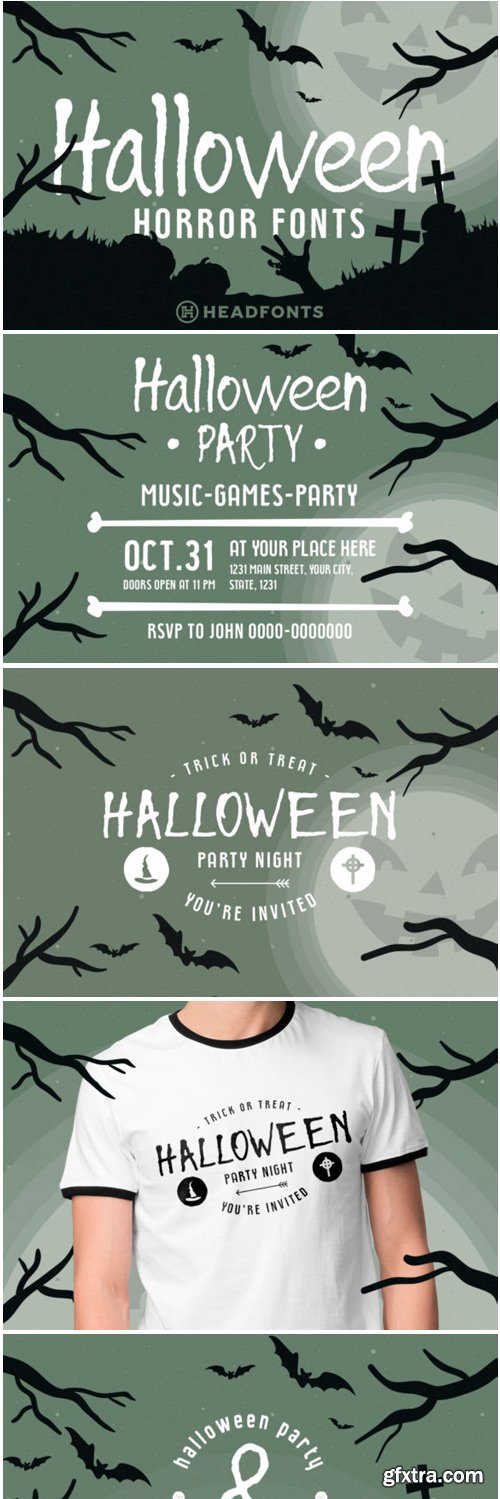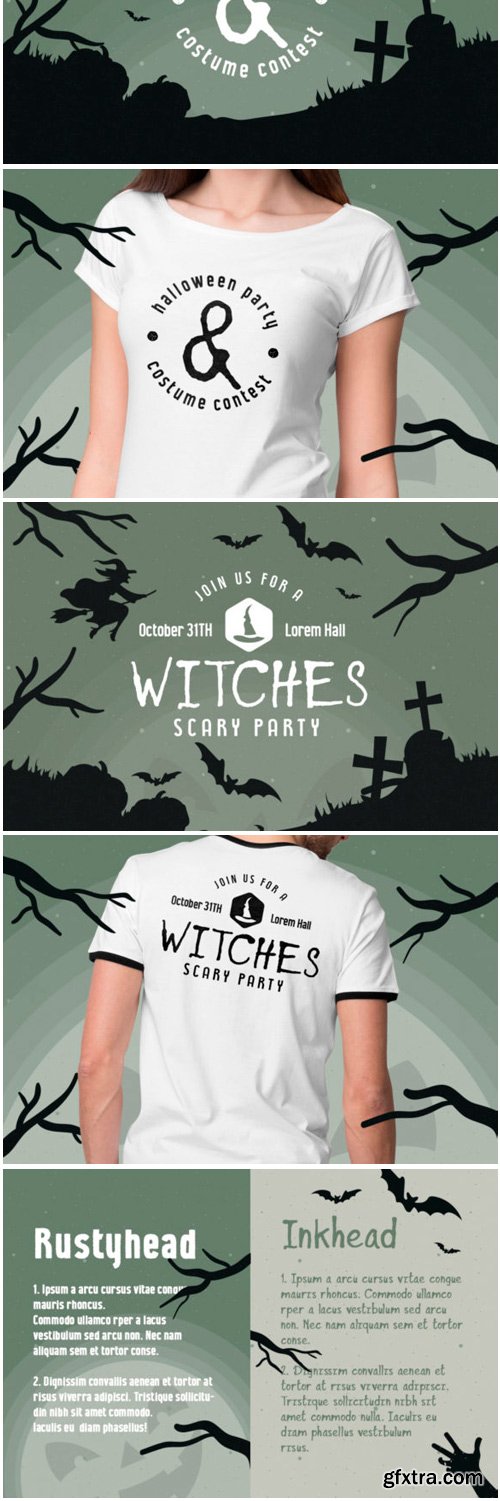
Halloween Duo Font
Halloween is a scary and fun pairing of two perfect Halloween-themed fonts. These two fonts will add a spooky feel to any October craft!